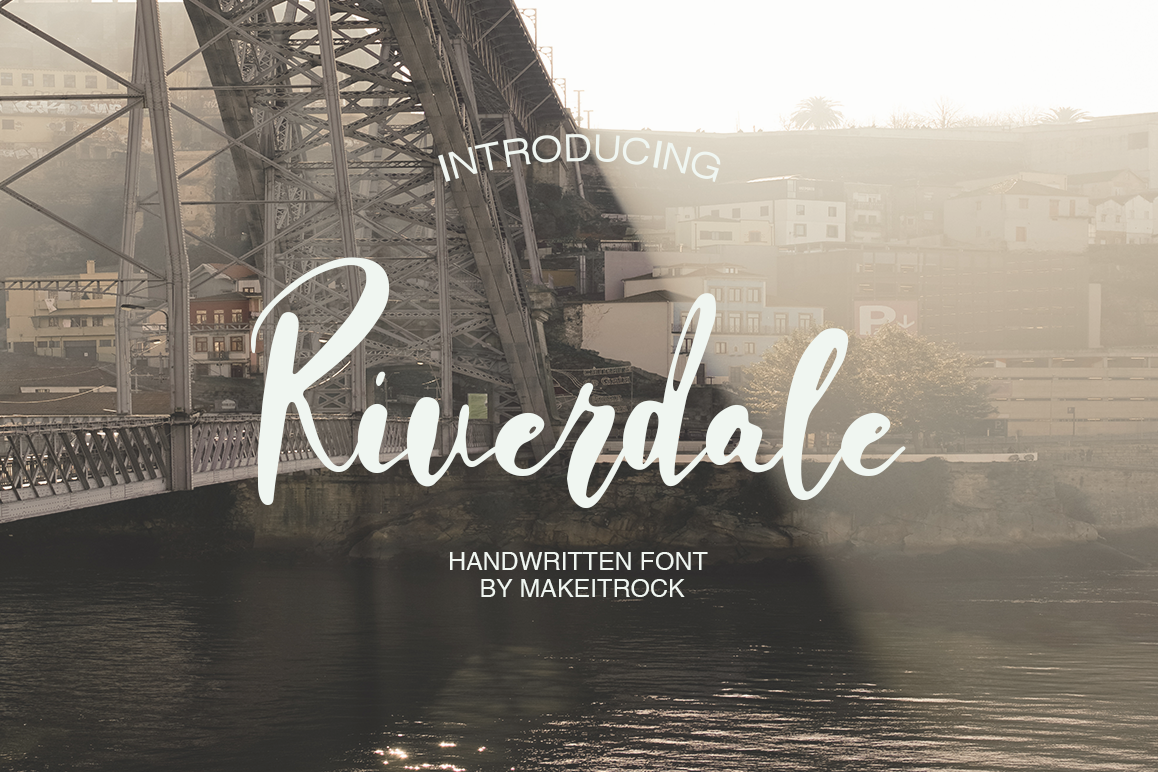
Created By Makeitrock
Riverdale
*A new fresh handmade calligraphy font.Very suitable for greeting cards, branding materials, business cards, quotes, posters, and more!This font are perfect for wedding postcard. Or you can create perfect and unique design of your logo, blog, stationery, marketing, magazines and more :)
Riverdale
By Makeitrock